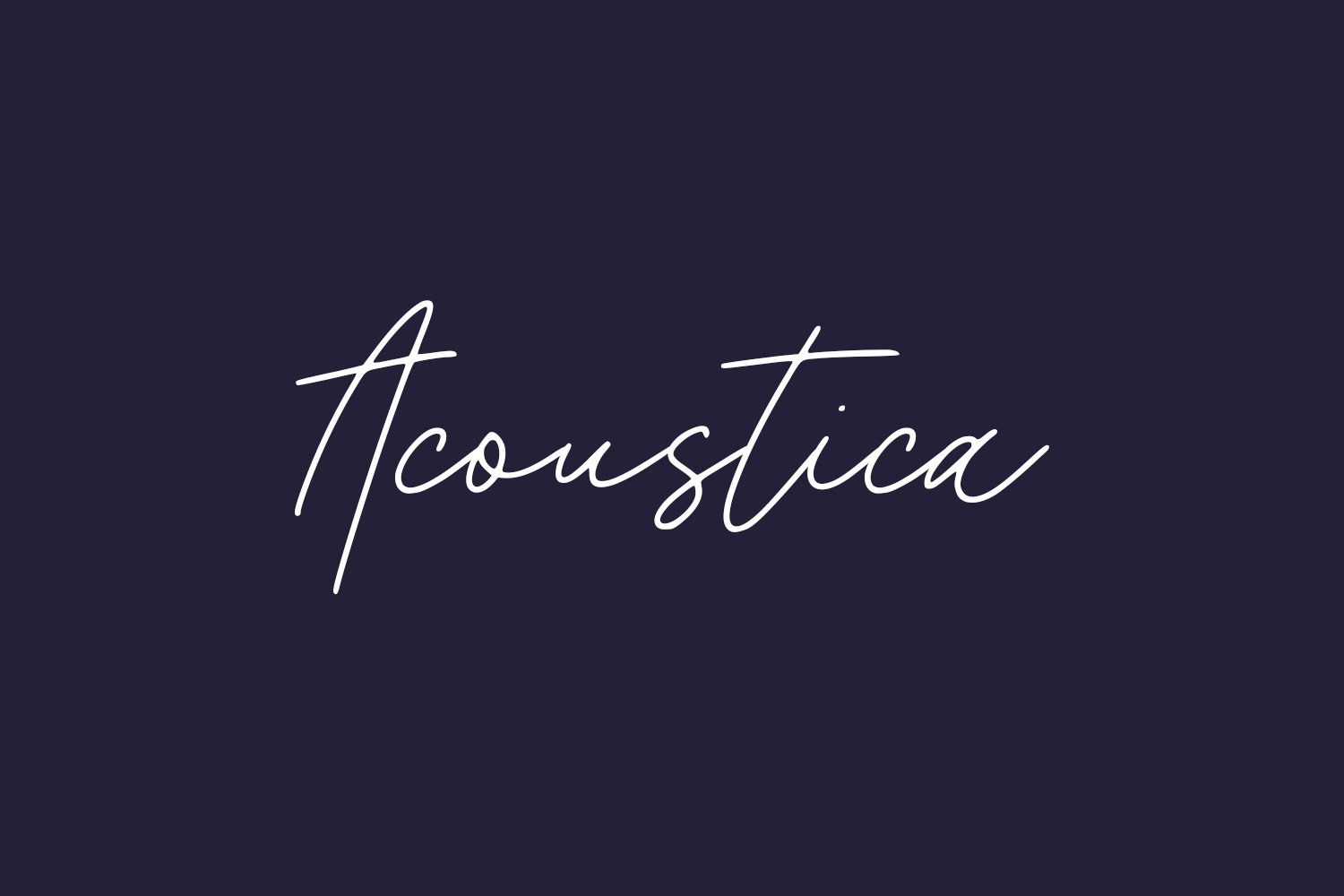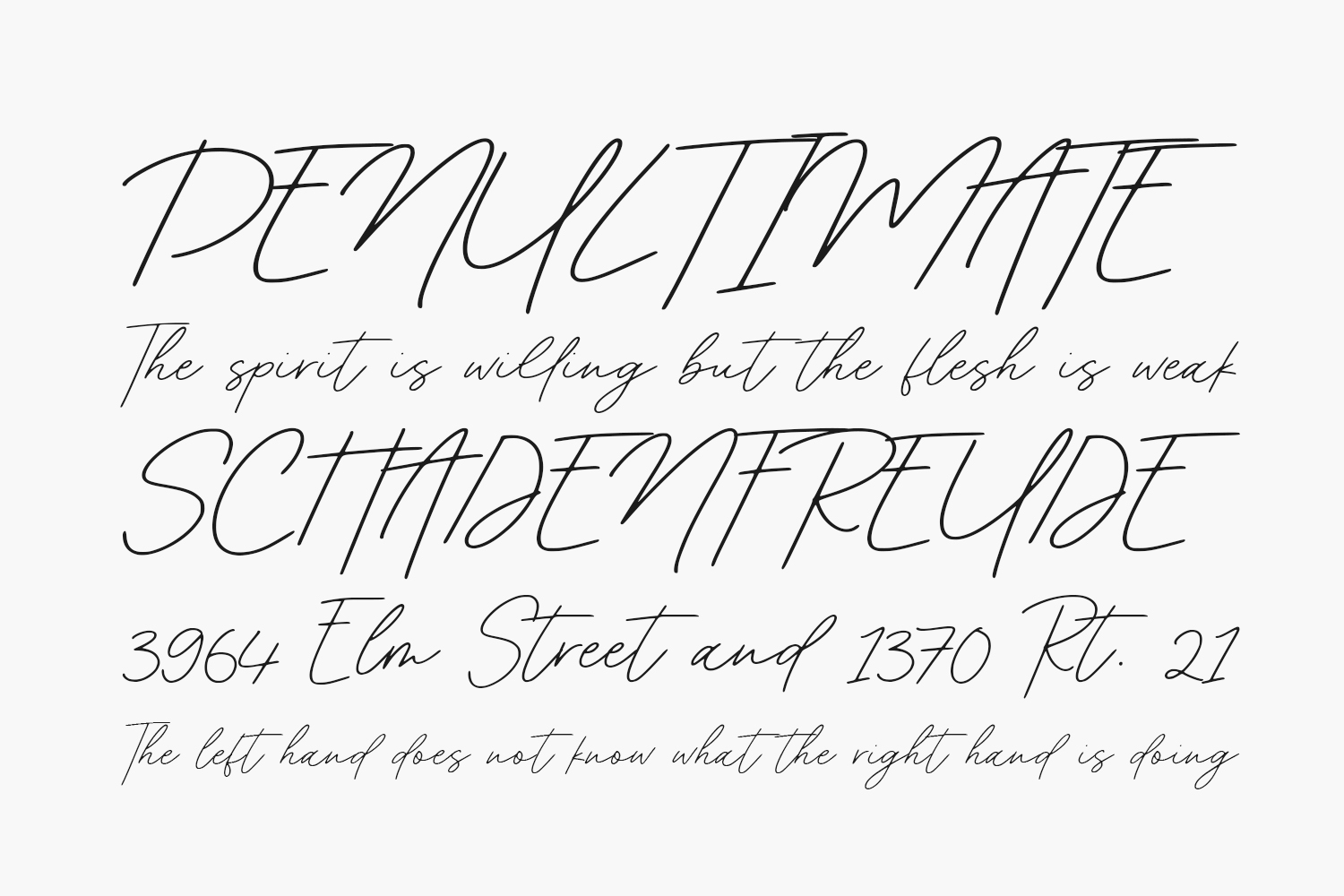
Acoustica Free Font is a breathtaking script font that radiates sophistication and refinement. Meticulously designed to cater to individuals seeking a stunning and rejuvenating aesthetic for their creative projects. Acoustica Free Font is free for personal use only. Please purchase the full version for commercial use.
Designed by Balpirick Studio